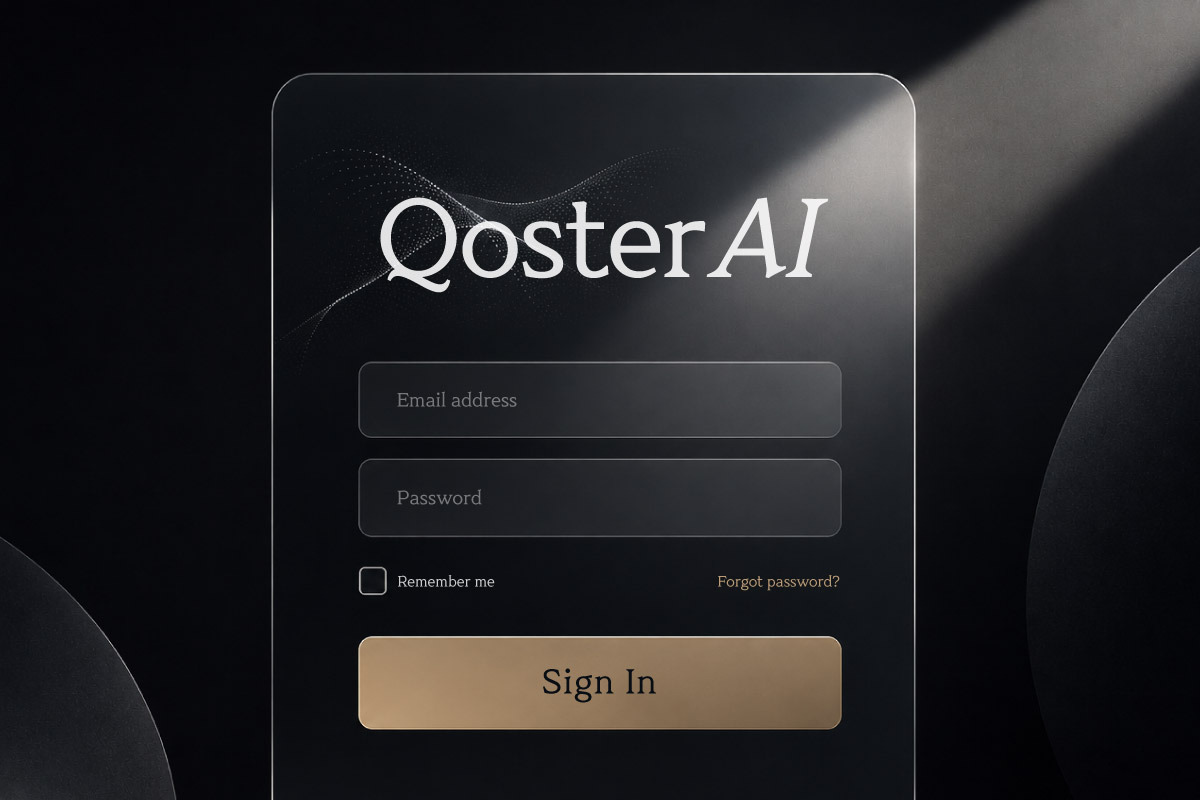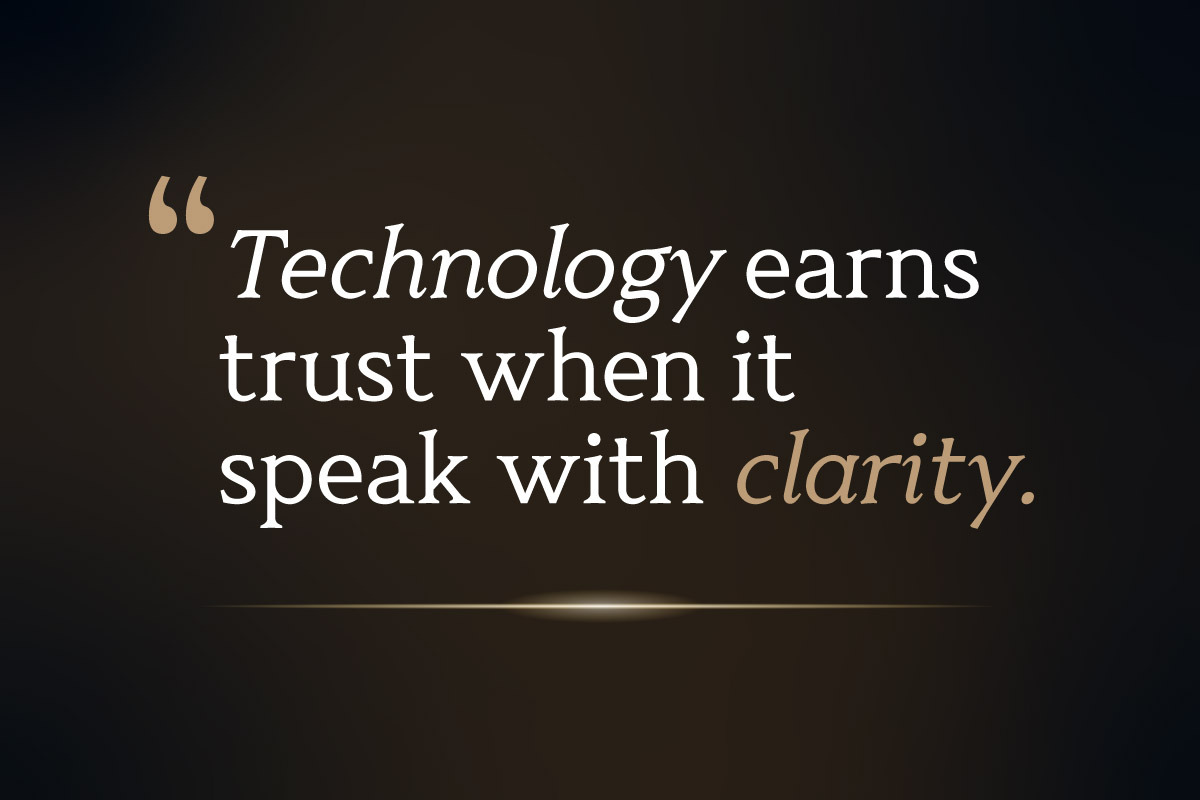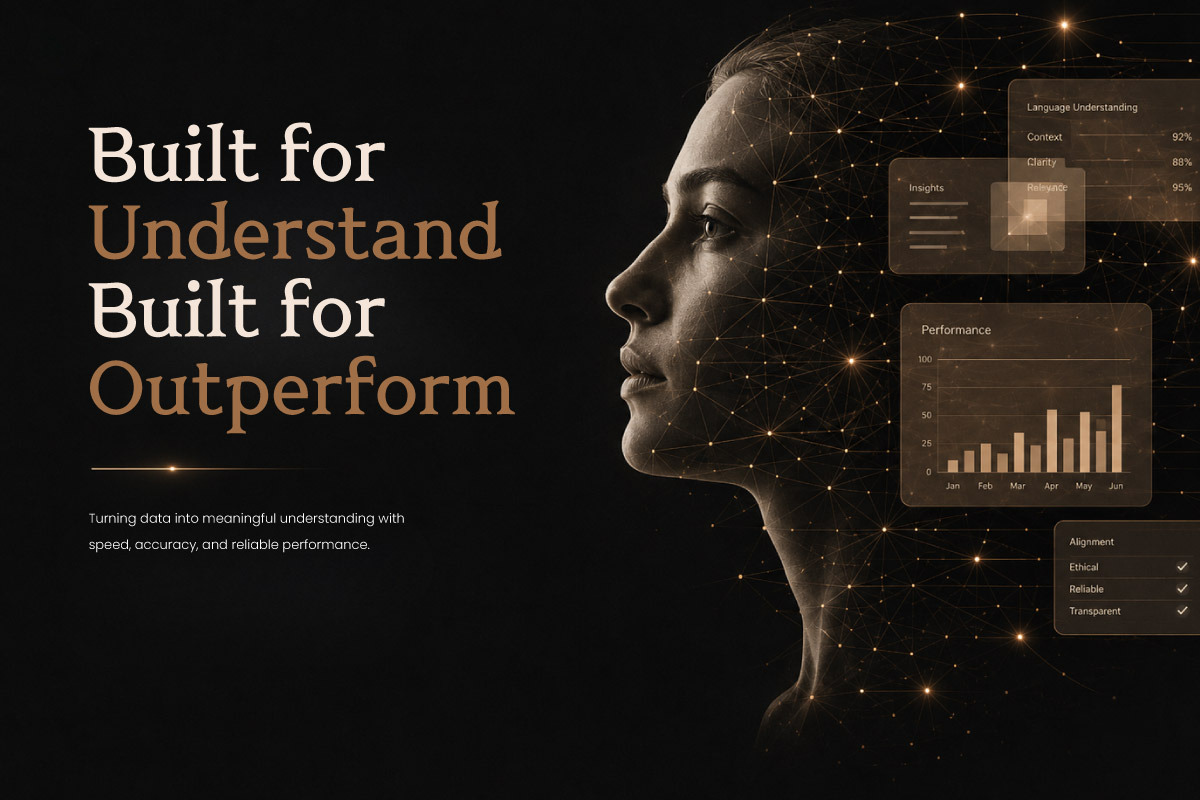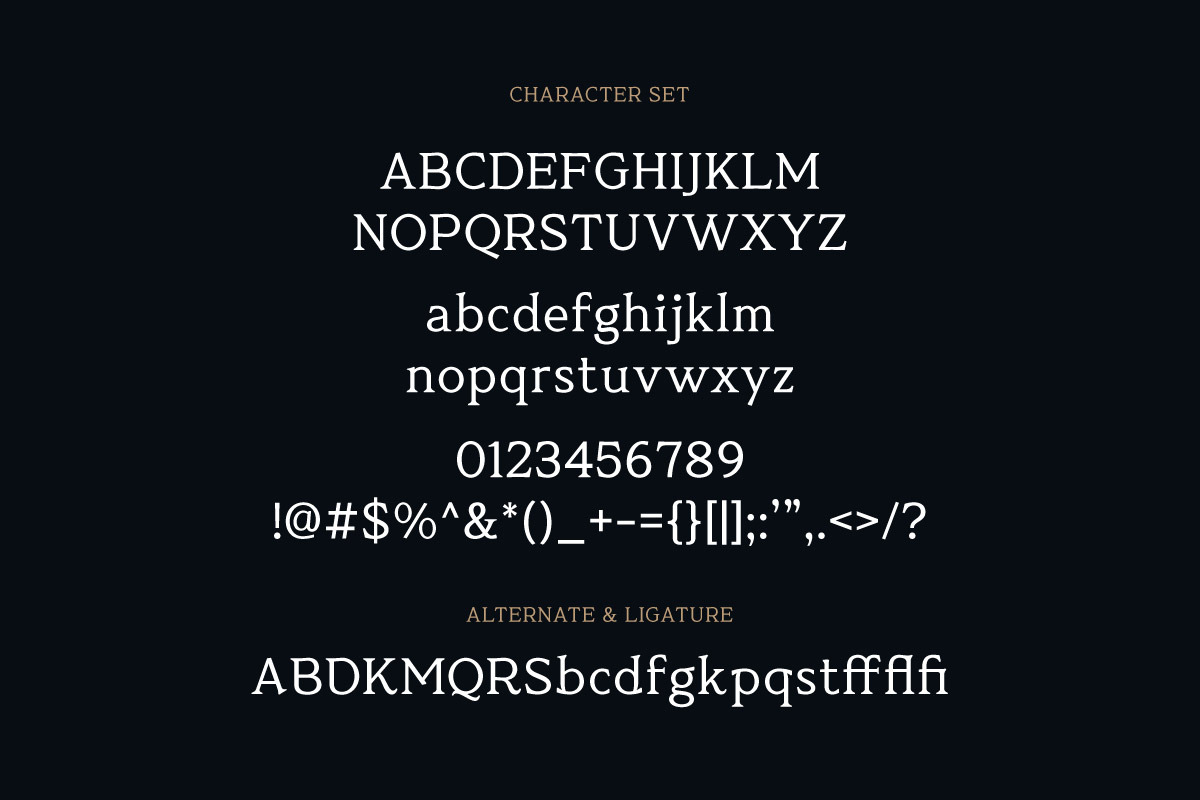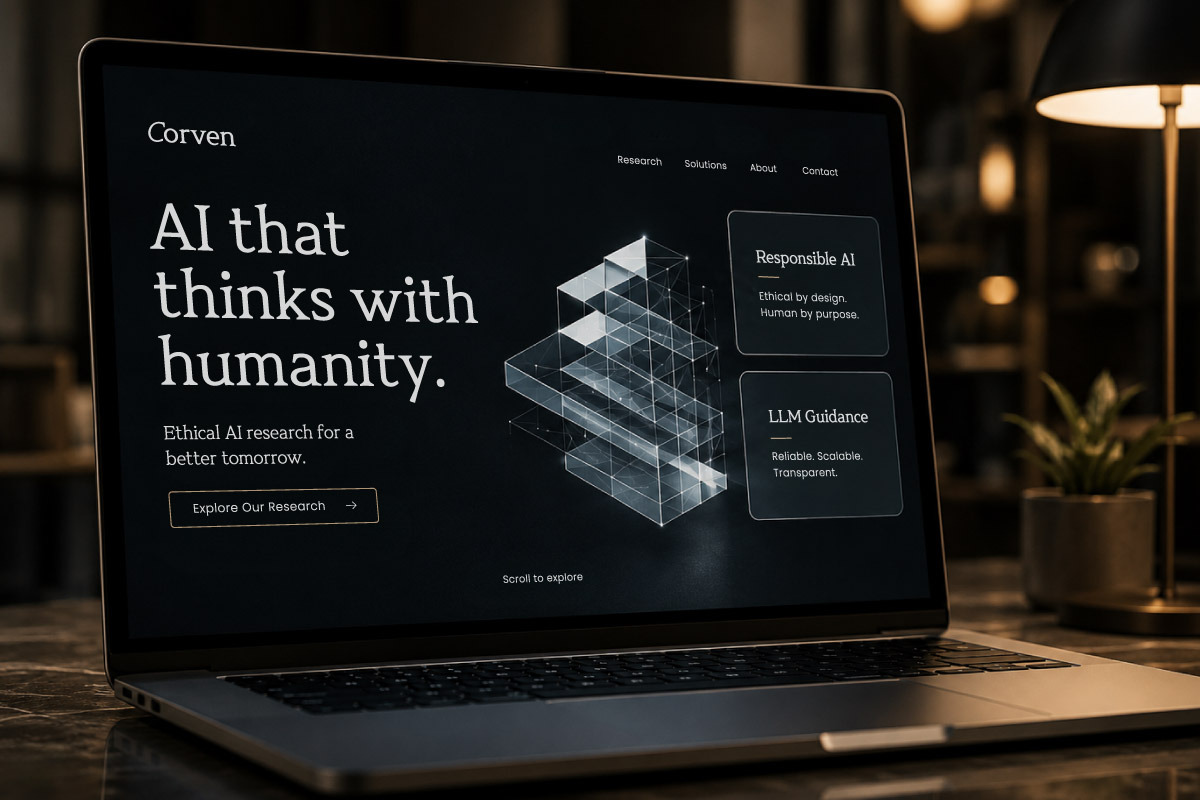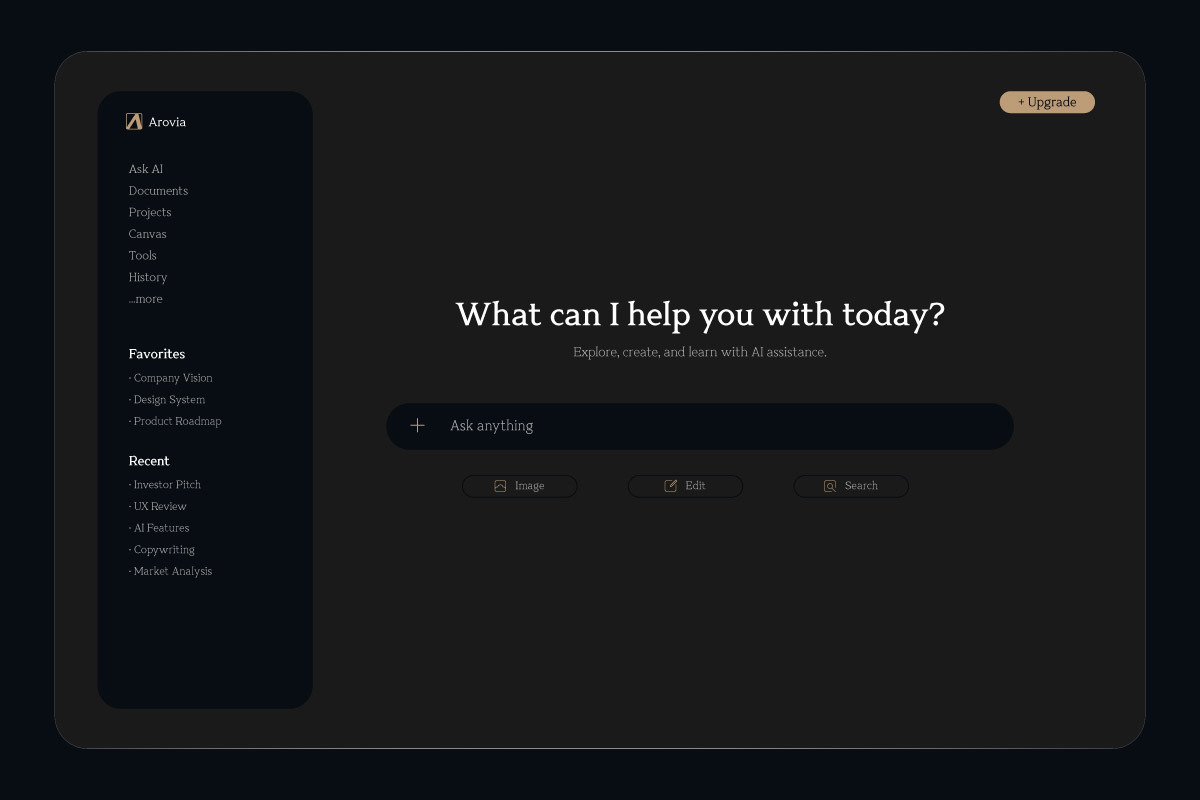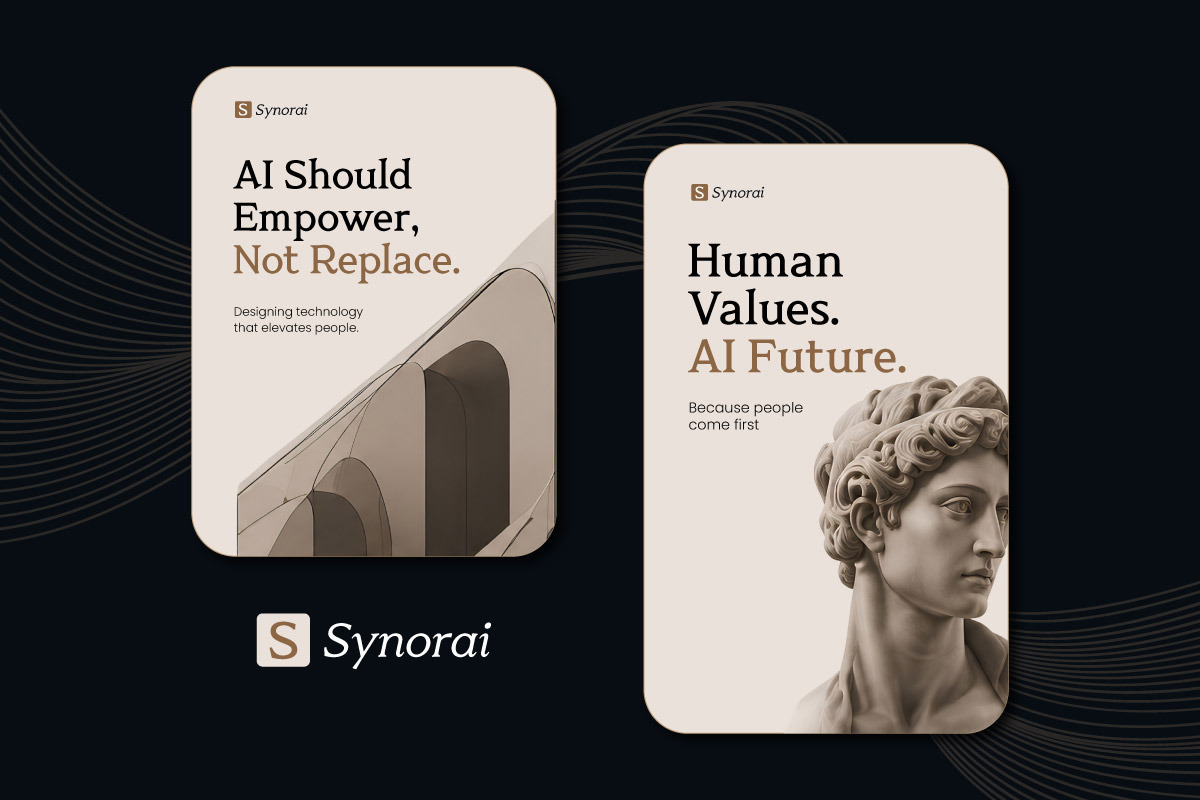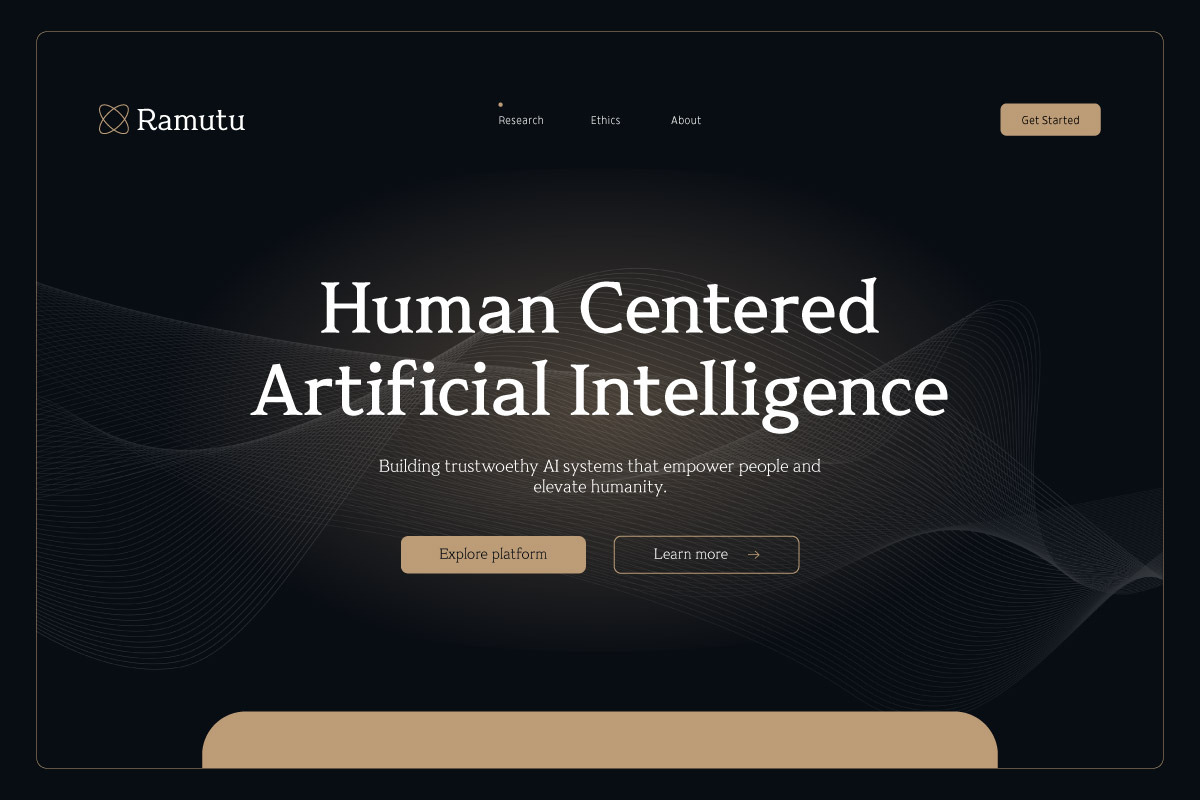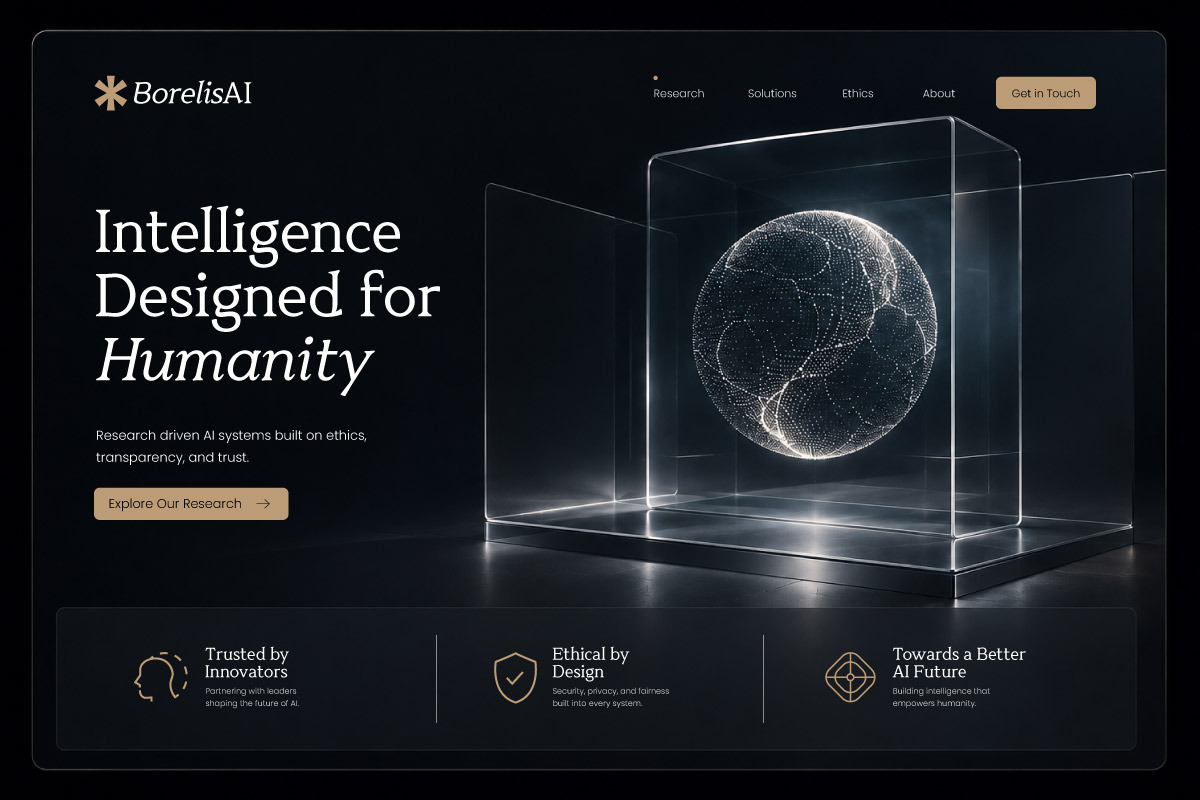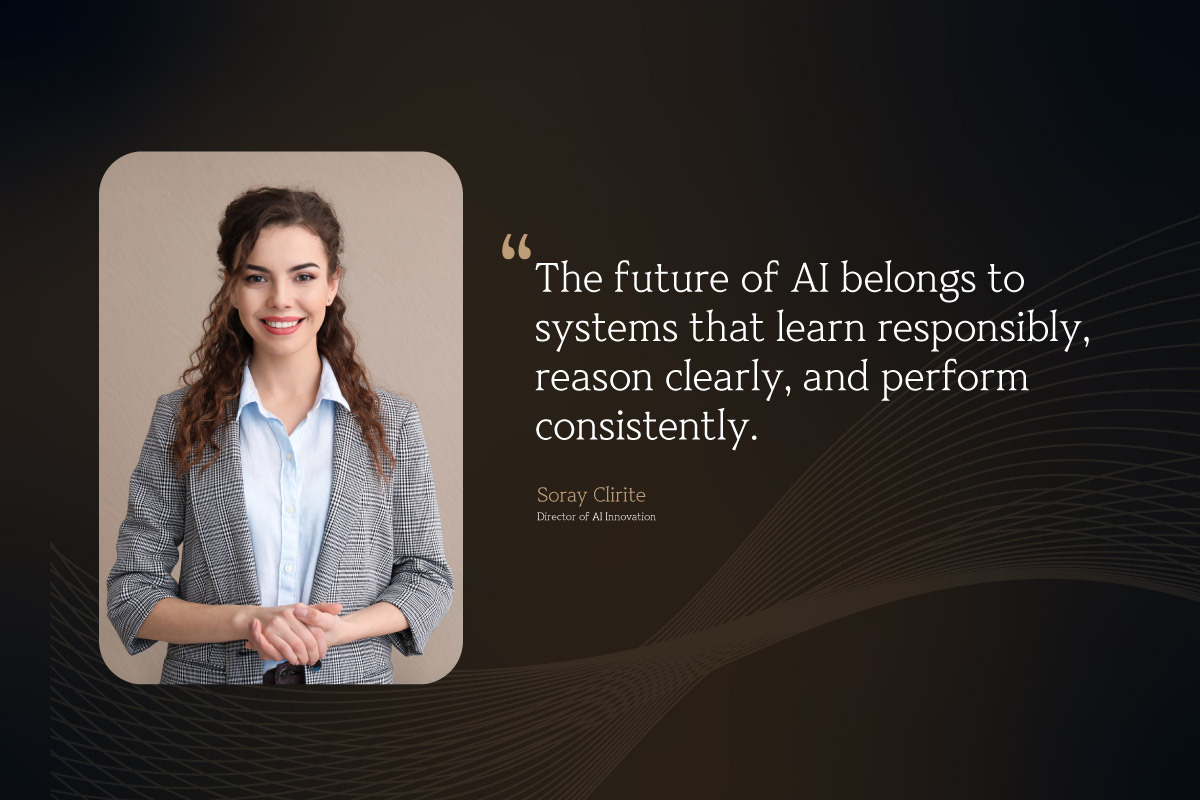
MT Belsior - Ethical AI Serif
MT Belsior - Ethical AI Serif is a premium serif font designed to convey an elegant, intellectual, and trustworthy impression for brands in Artificial Intelligence, technology, SaaS, research, and digital innovation. Featuring a modern serif character with balanced proportions, subtle contrast, and precise details, this font creates an exclusive yet human-centered visual identity. It is perfect for brands seeking to build a professional, visionary, and future-oriented image.
This font is ideal for AI startups, technology websites, SaaS landing pages, OpenAI tools, chatbot platforms, corporate branding, UI/UX interfaces, editorials, presentations, and various digital and print needs. Its high readability makes it comfortable for use in headlines, logos, hero sections, and editorial typography, resulting in a luxurious and classy visual experience.
Equipped with various styles, alternates, multilingual support, and professionally designed characters, MT Belsior offers high flexibility for a variety of modern branding needs. The combination of classic nuances and futuristic technology makes it a perfect choice for AI companies, research institutes, software companies, creative agencies, and premium technology businesses.